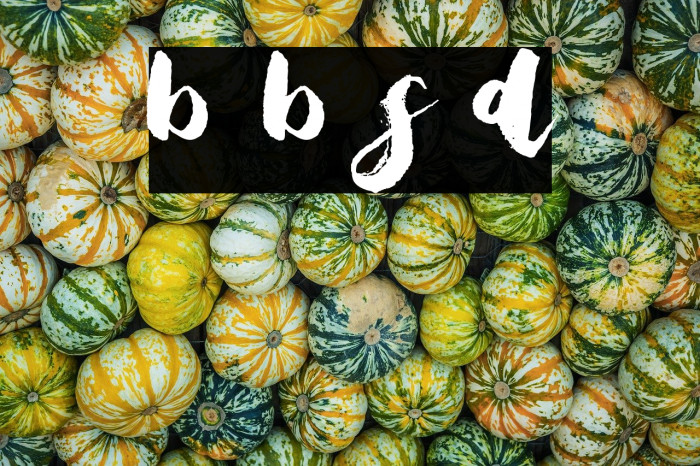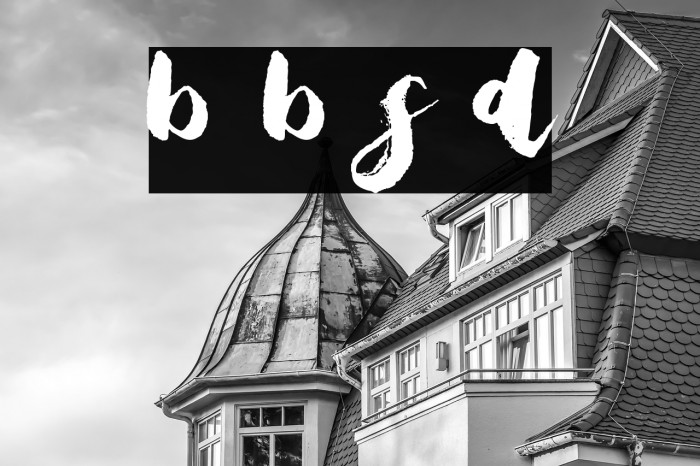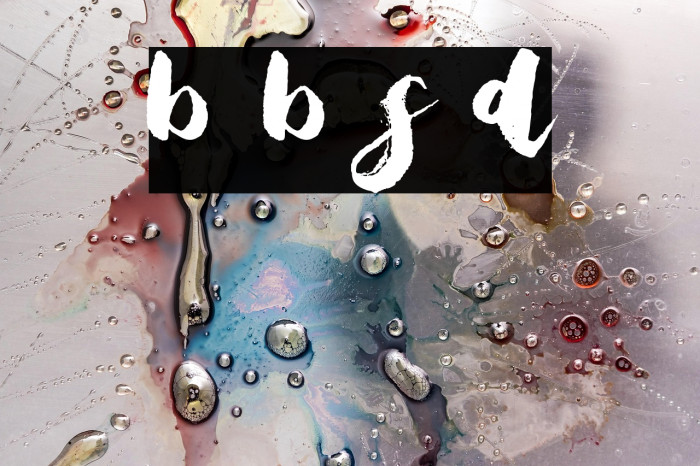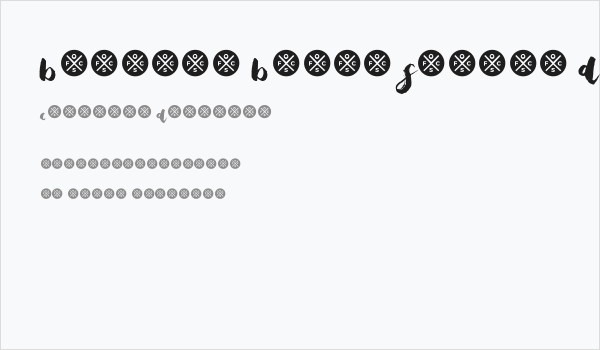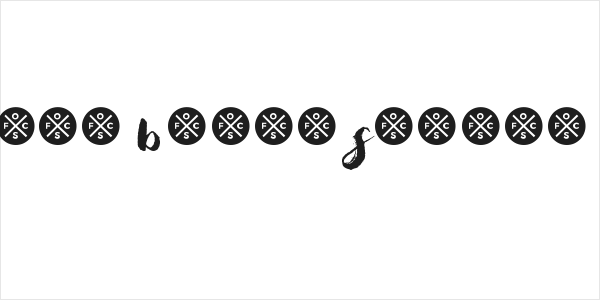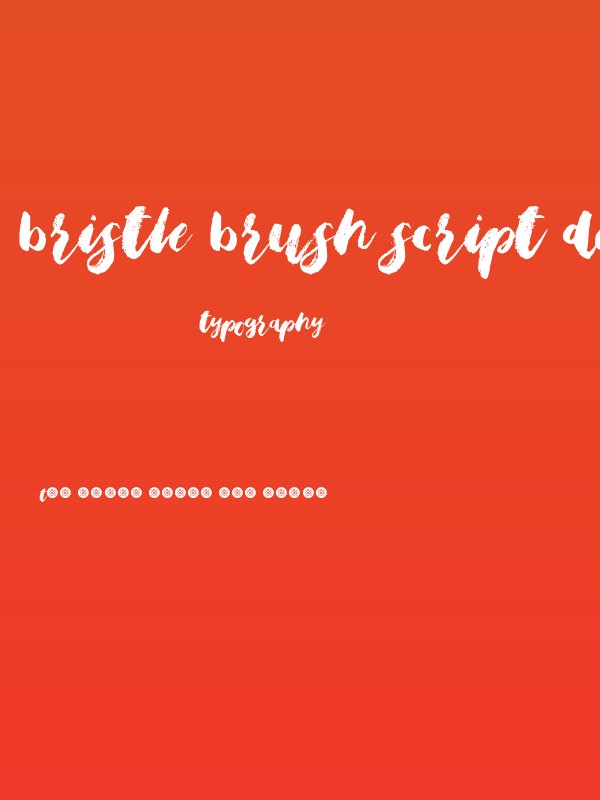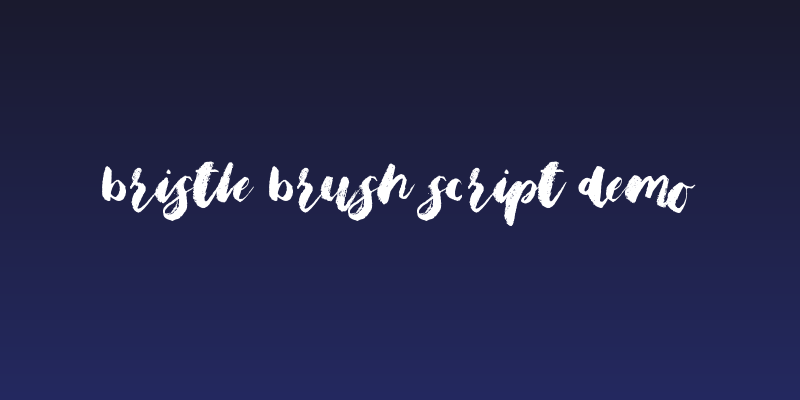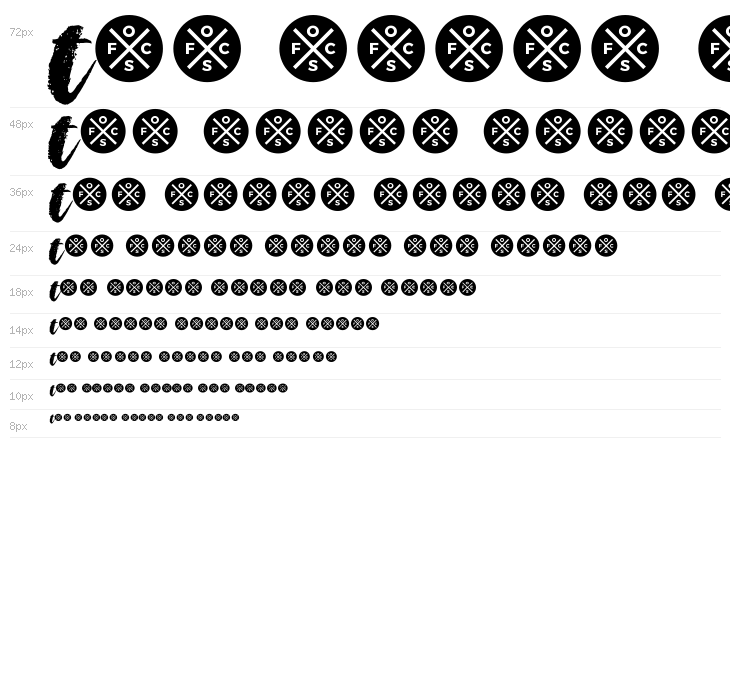
Bristle Brush Script Demo Font
Bristle Brush Script Demo Description
This font exudes a dynamic and expressive style, characterized by its bold, brush-like strokes that convey a sense of movement and energy. The letters are crafted with a textured appearance, reminiscent of hand-painted calligraphy, which adds a personal and artistic touch. The irregularities in stroke width and the rough edges contribute to its organic and authentic feel. This font is ideal for projects that require a creative and informal aesthetic, such as artistic branding, event posters, or social media graphics. Its unique style makes it stand out, capturing attention with its lively and spontaneous character.
| Proposed Projects | Ideal for artistic branding, event posters, social media graphics, and creative projects. |